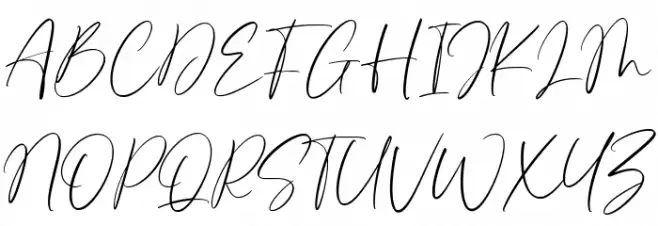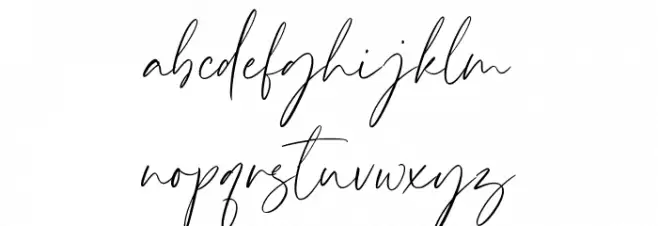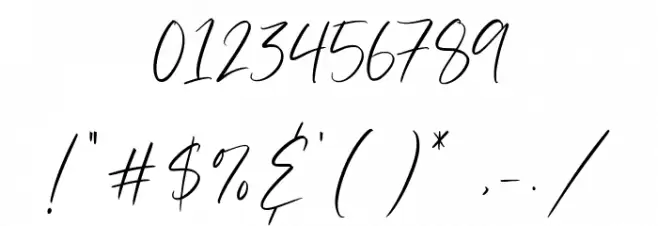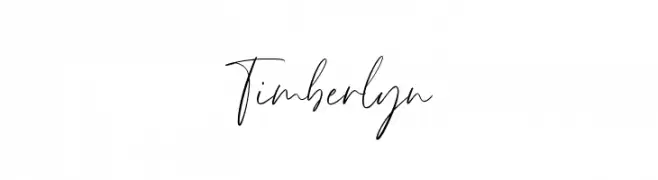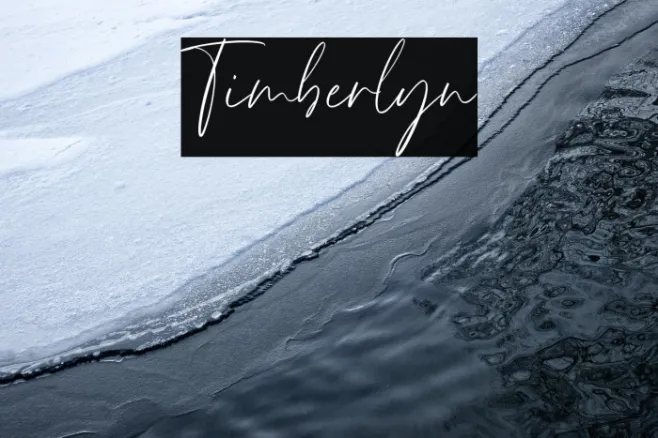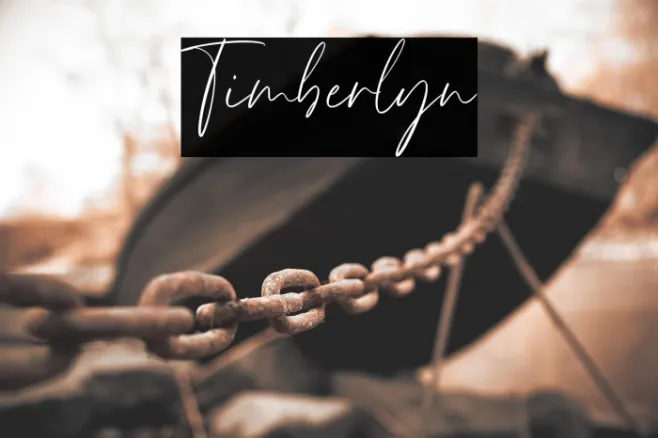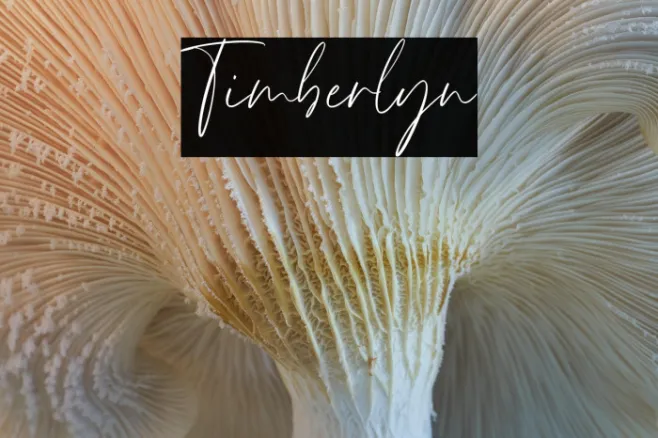
Timberlyn
A flowing, elegant script font with a handwritten style, featuring smooth curves and a natural, personal touch.
Elegant handwritten script font.
- Proposed Projects: Wedding invitations, personal branding, greeting cards.
- Category: Script
- Weight: Light
- Overall Style: Decorative
- Use Case: Logos, Invitations, Personal notes